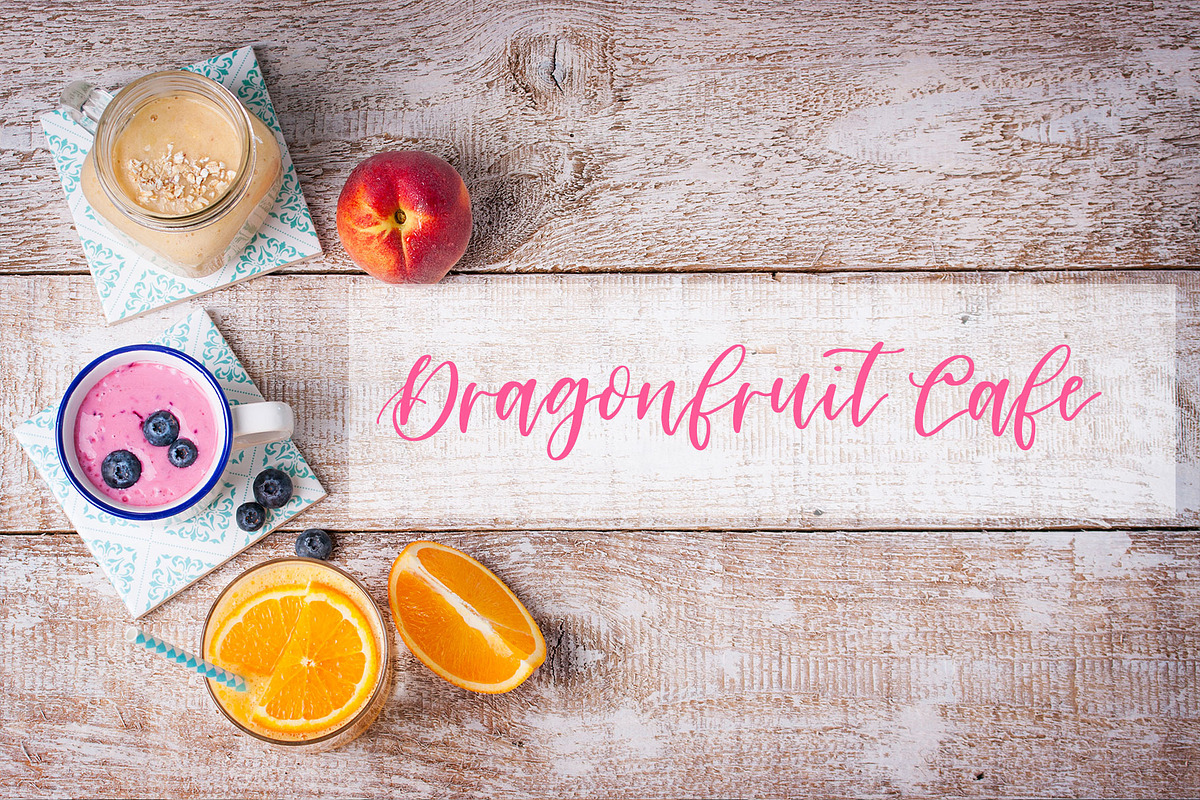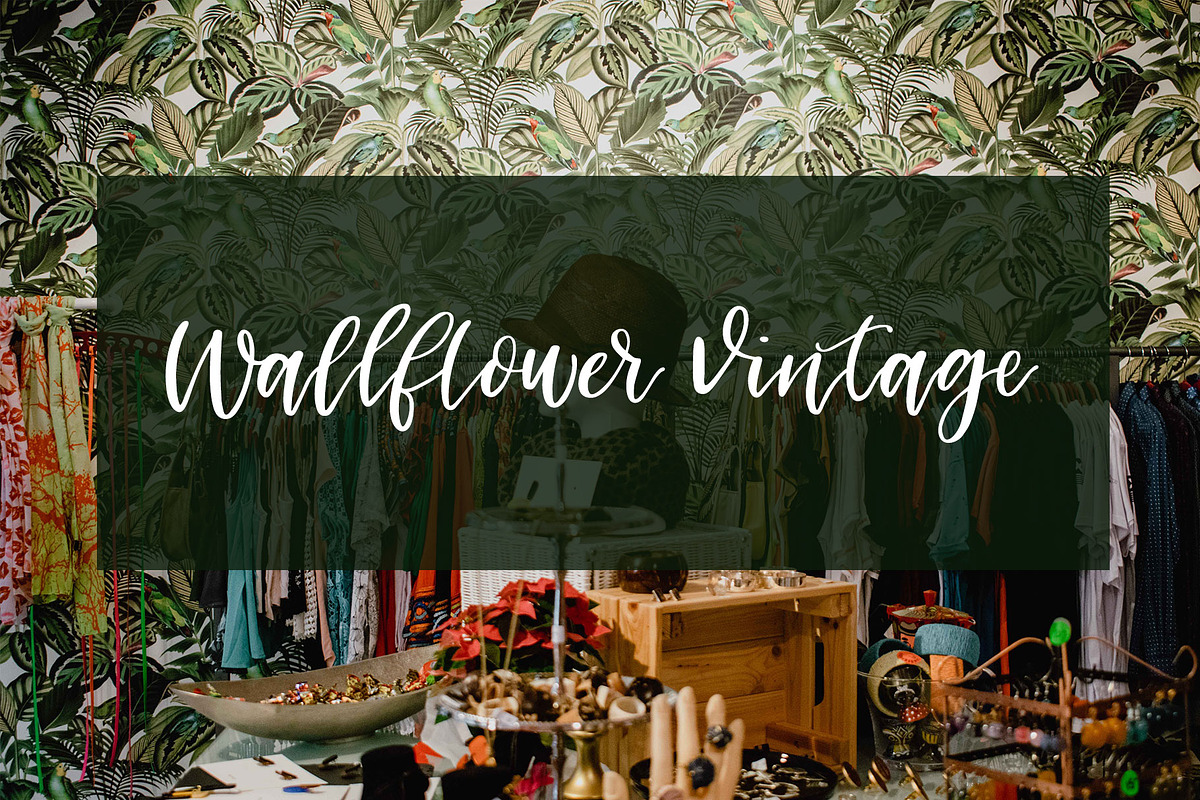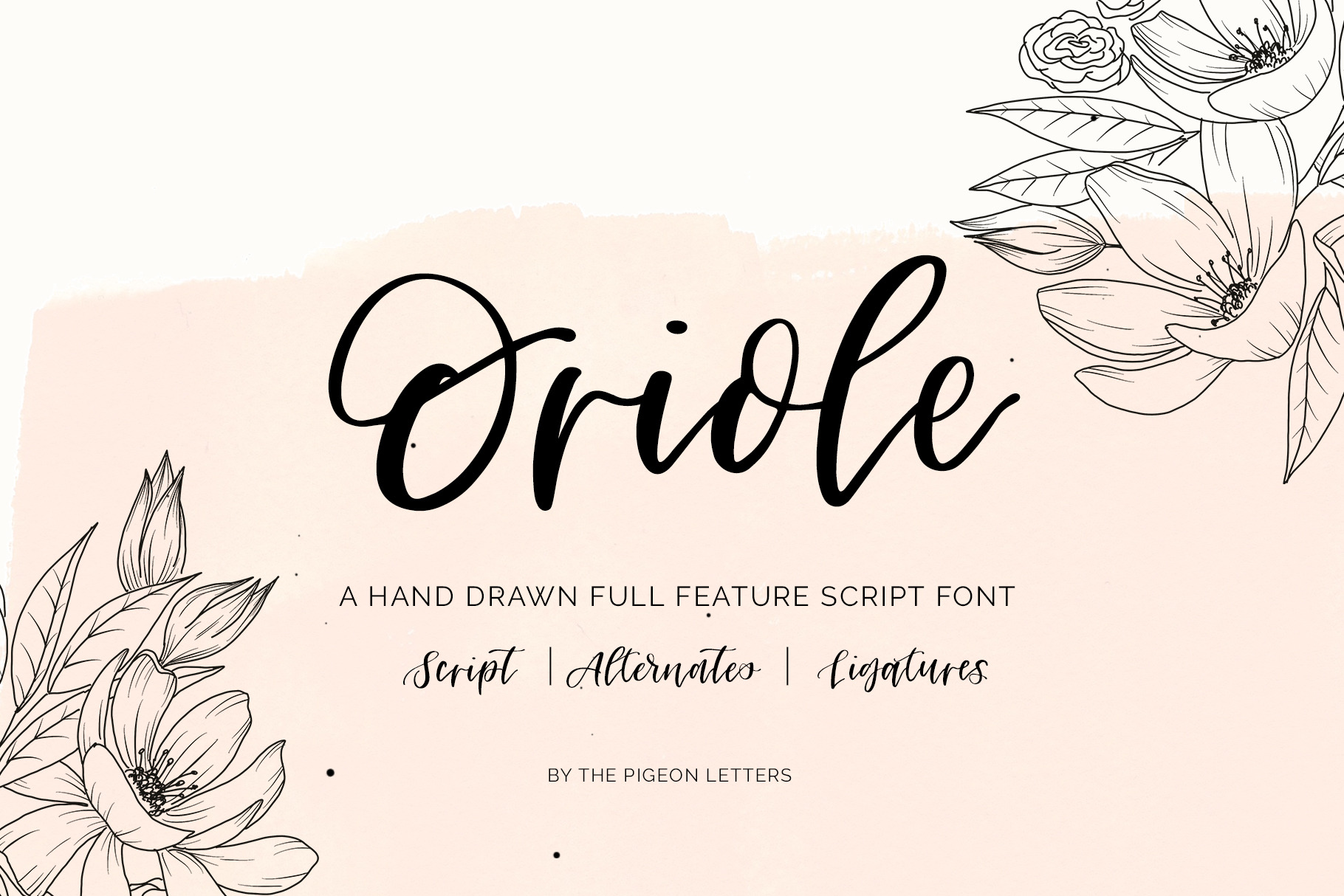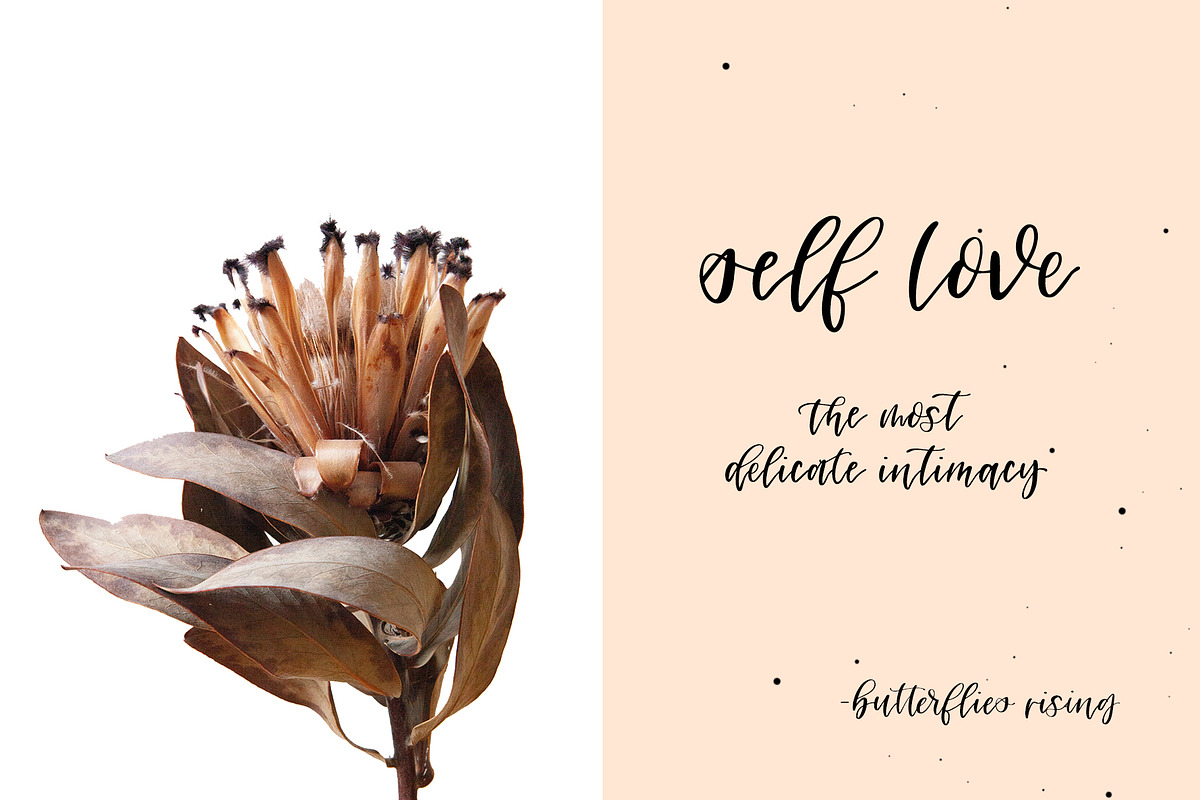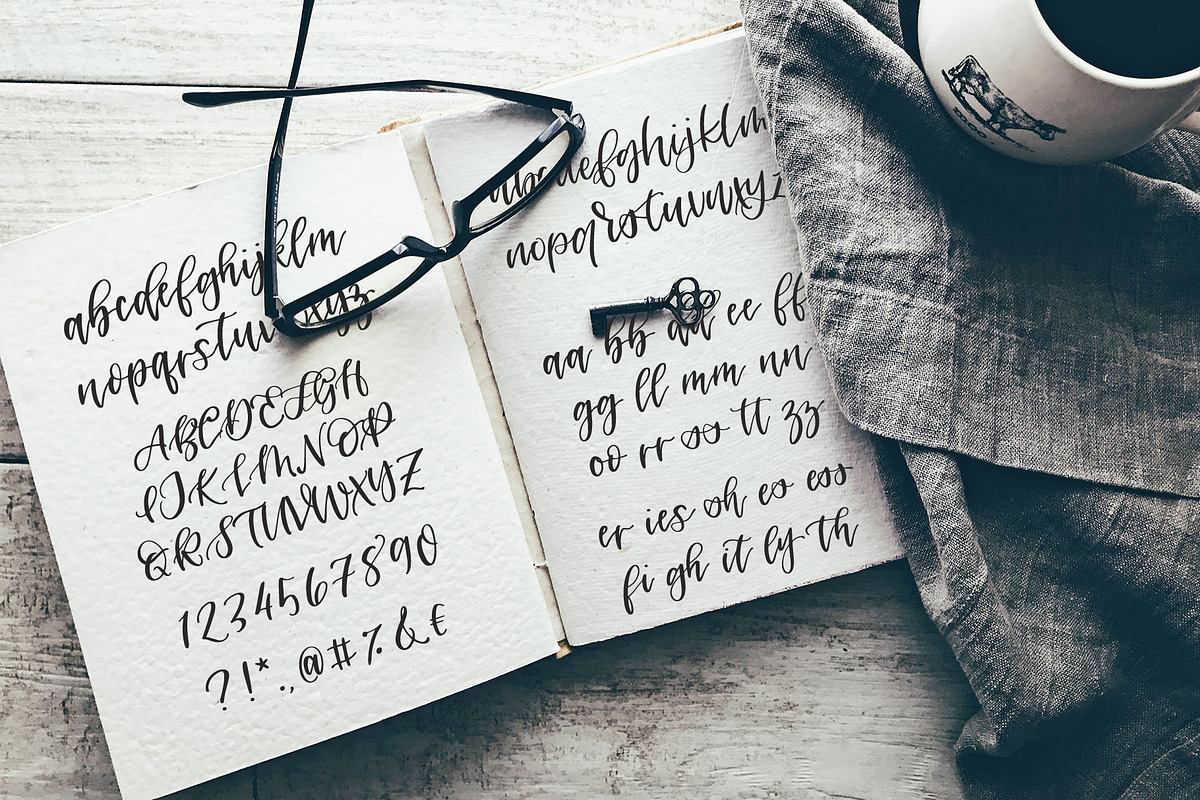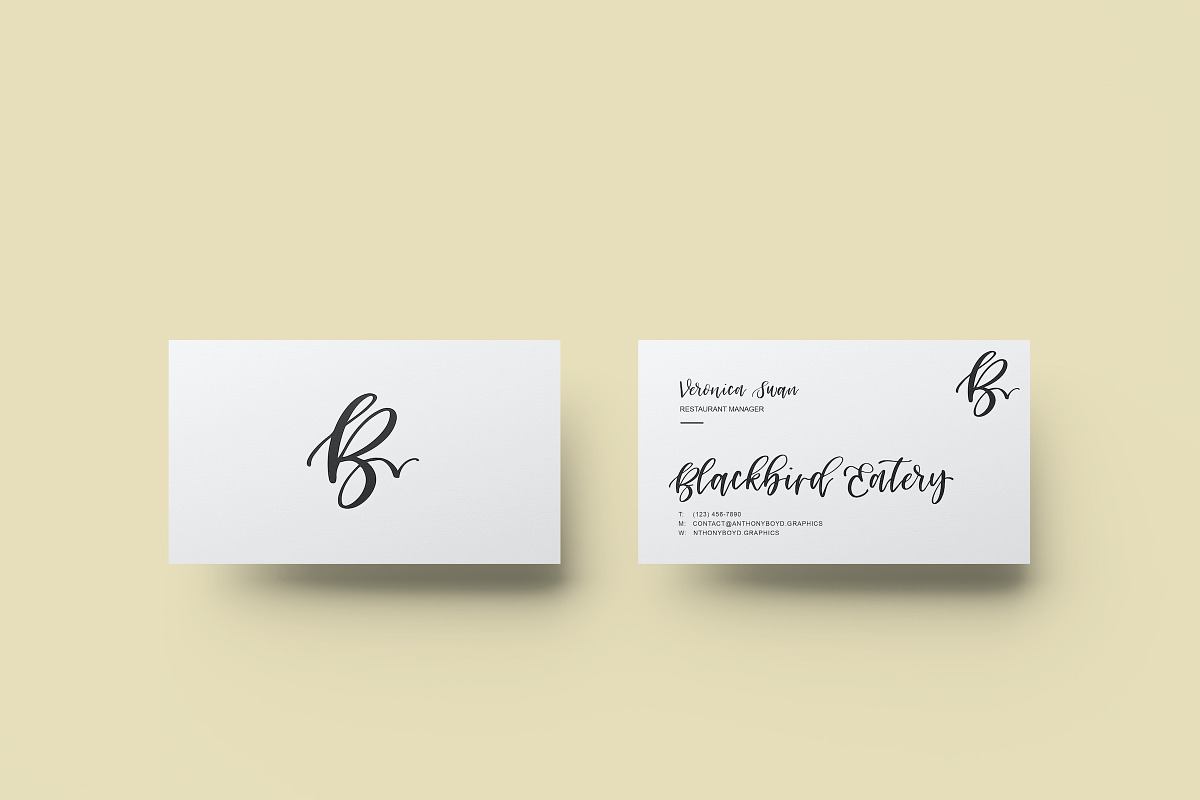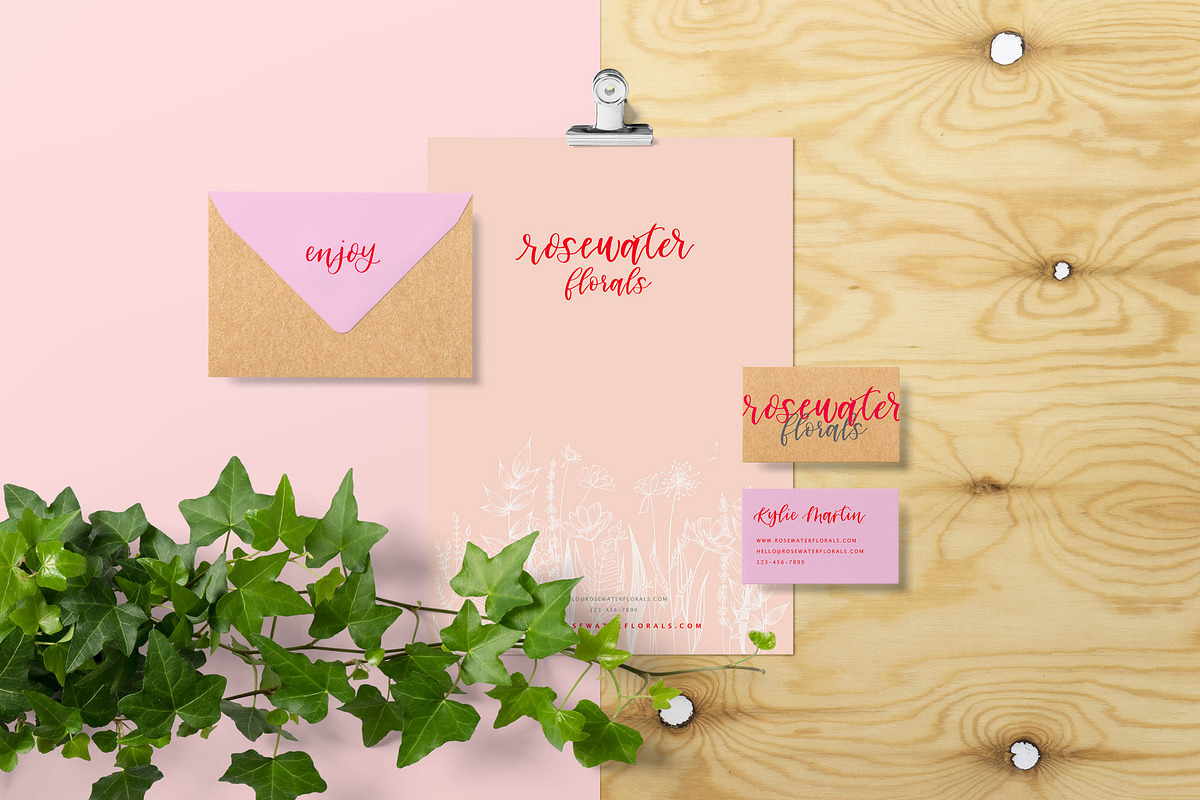
Oriole Script Font
Introducing the new hand drawn full feature script font: Oriole. This font presents a modern calligraphy style that offers the ideal conventional layout that you can incorporate into a plethora of designs.
Oriole was created with love as a hand drawn script and built from scratch with OpenType features and includes some initial and end forms, stylistic alternates for ALL lowercase letters, numbers, punctuation, and a handful of beautiful ligatures. It is PUA encoded and multilingual with Western European language support.
- Discretionary Ligatures
- Hand Drawn
- Selected initial and end forms